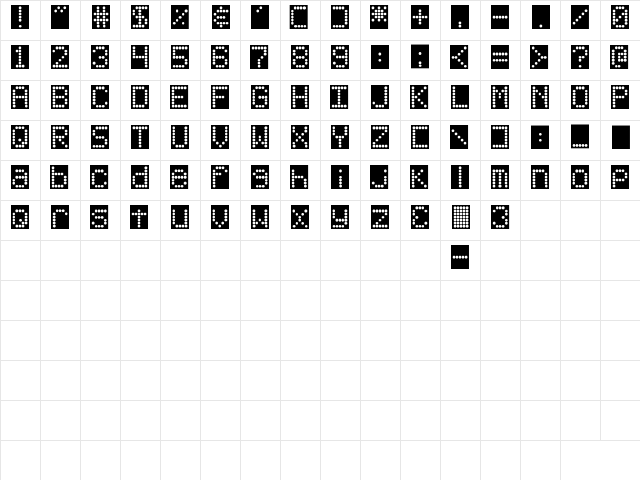
DJB Up on the Scoreboard Regular
| Designer | Darcy Baldwin |
Design Context for DJB Up on the Scoreboard Typeface
DJB Up on the Scoreboard is a composed and adaptable typeface that performs quietly and consistently across a wide range of design contexts.